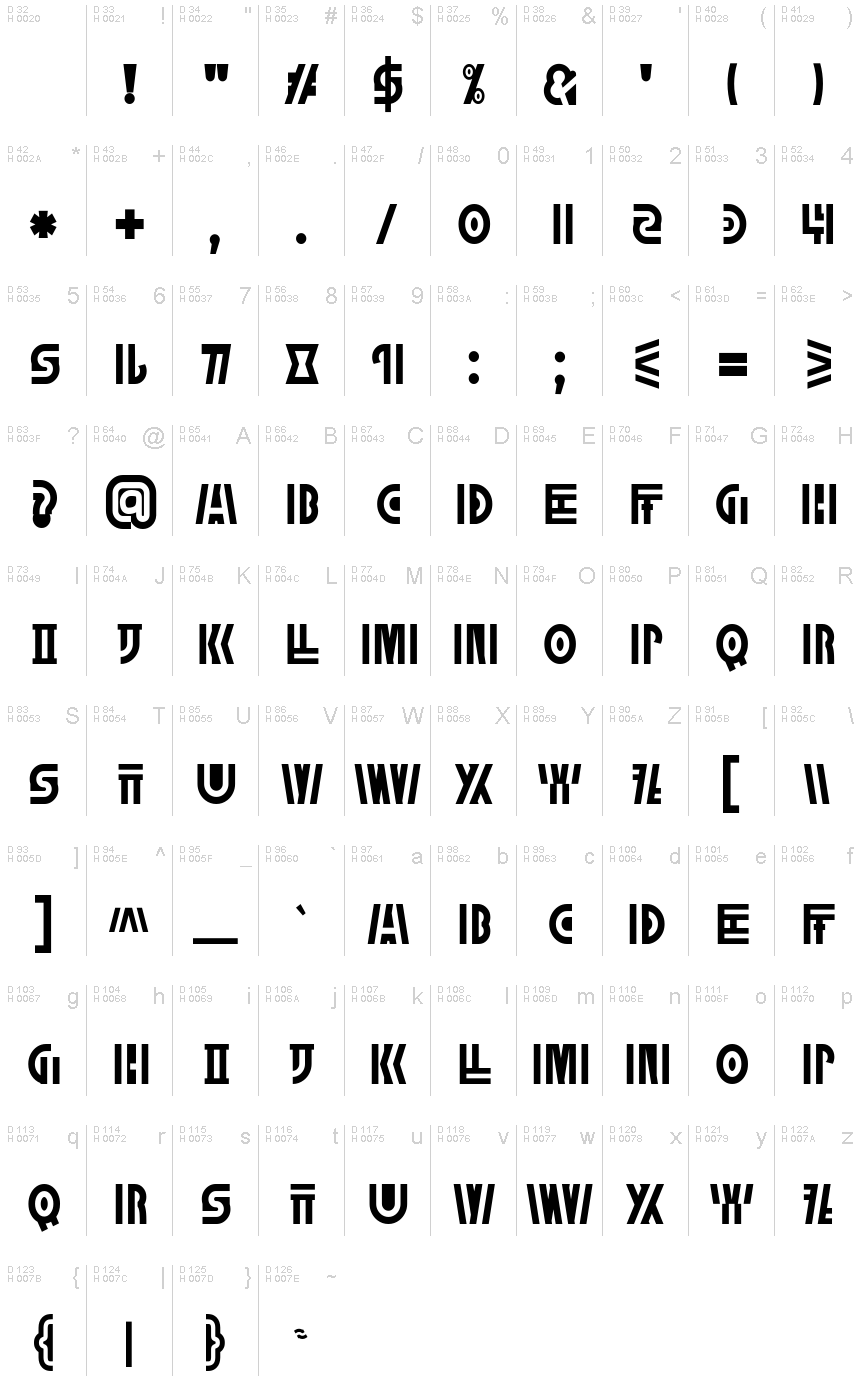
MegaDose
Mega Dose is a boldly expressive display font that commands attention. Designed by Max Infeld of Xerographer Fonts, this striking typeface boasts a unique, angular aesthetic that exudes a sense of power and dynamism. The thick, geometric letterforms and pronounced serifs create a striking visual impact, making Mega Dose an ideal choice for headlines, logos, and other design elements that require a strong, impactful presence.
This font's versatility extends beyond its captivating appearance. Its bold, attention-grabbing nature lends itself well to a variety of applications, from editorial layouts and branding materials to packaging design and even large-scale signage. Mega Dose's distinctive style can help designers effectively convey a message or establish a memorable brand identity.